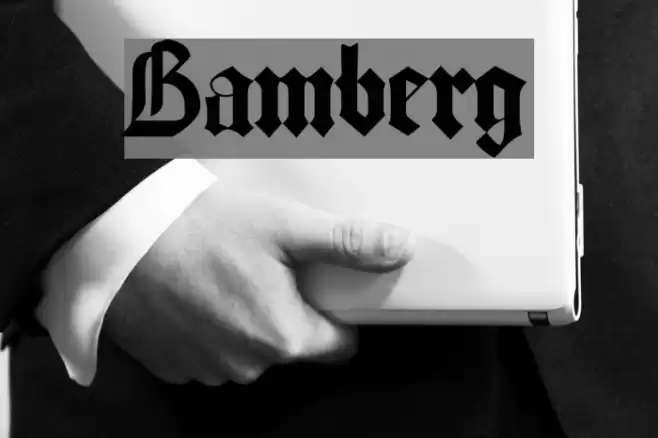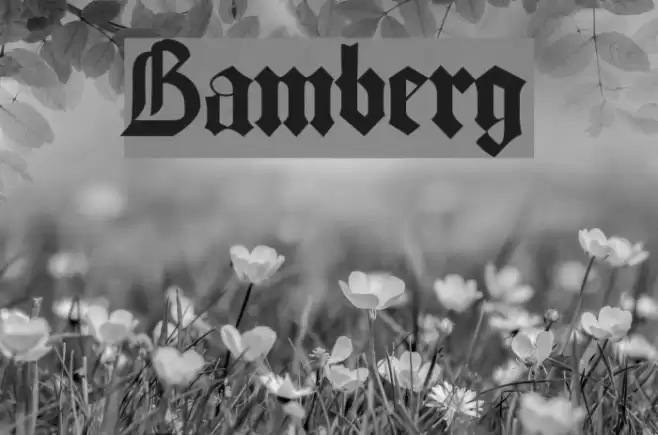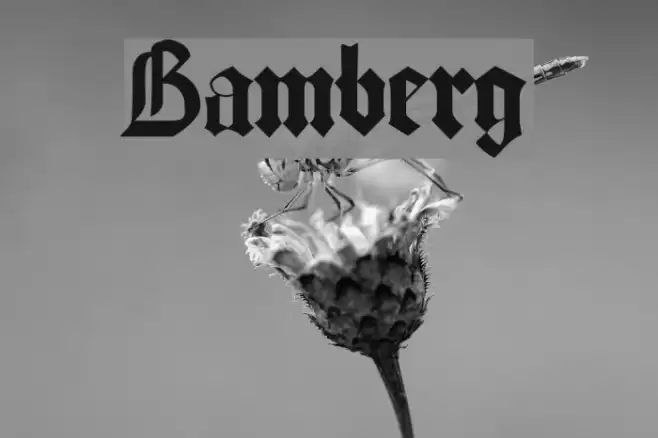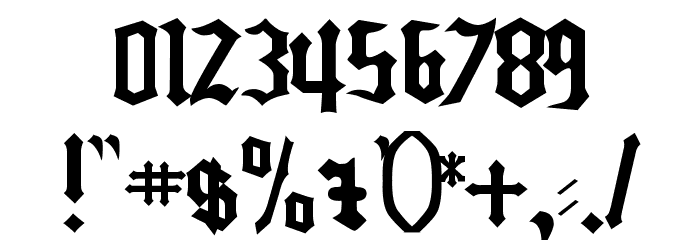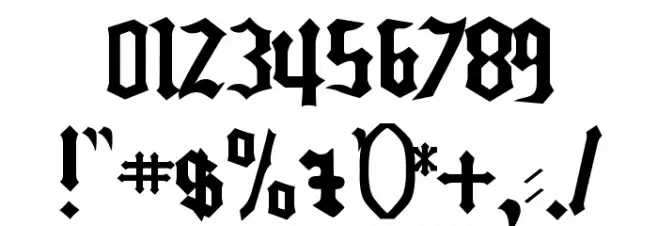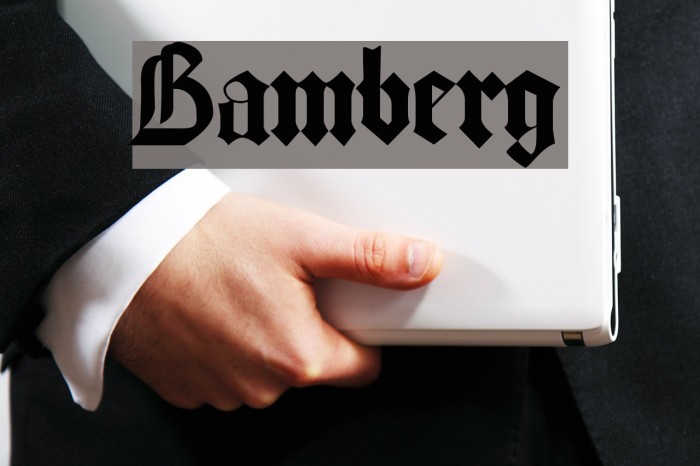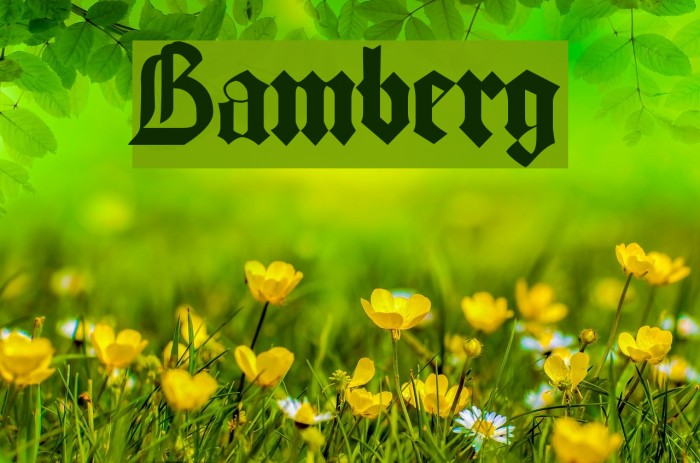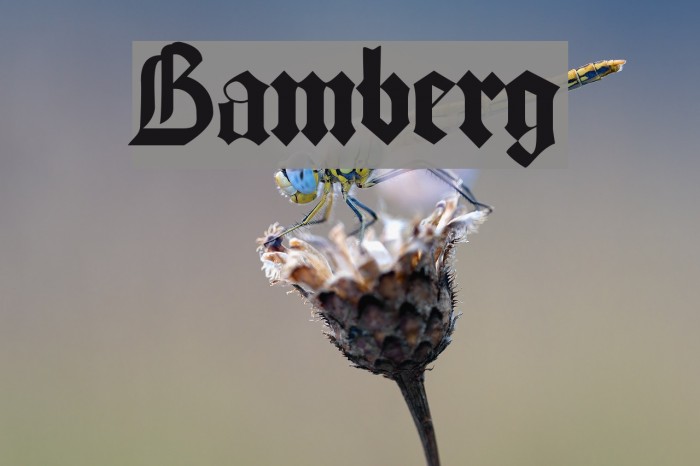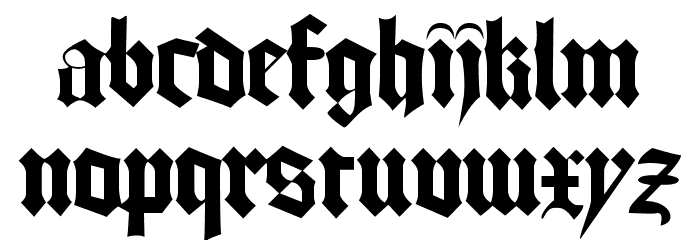
Bamberg Font
This font is a striking example of Blackletter style, characterized by its bold, angular lines and intricate detailing. Each letter is crafted with sharp edges and dramatic flourishes, evoking a sense of historical elegance and authority. The uppercase letters are particularly ornate, with elaborate serifs and a strong vertical emphasis. The lowercase letters maintain the same level of detail, ensuring consistency throughout the typeface. Numbers and special characters are equally stylized, making this font suitable for projects that require a touch of medieval or gothic flair. The overall appearance is both traditional and impactful, ideal for creating a sense of grandeur and formality.
A bold, intricate Blackletter font with sharp, angular lines and historical elegance from Uncategorized fonts.
- Proposed Projects: Ideal for use in historical documents, wedding invitations, certificates, or any project requiring a gothic or medieval aesthetic.
- Overall Style: Vintage
- Use Case: Headlines, Logos, Decorative text